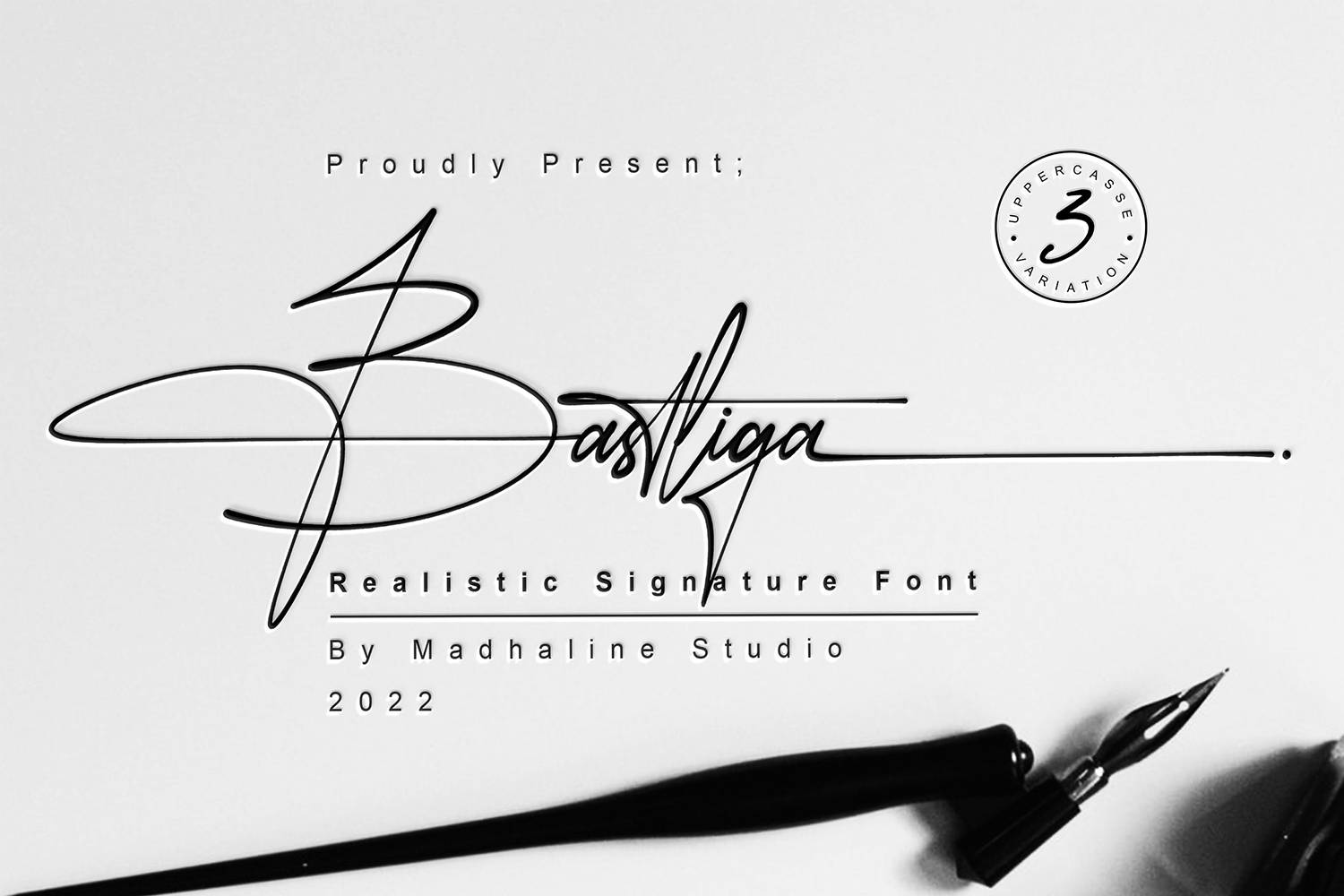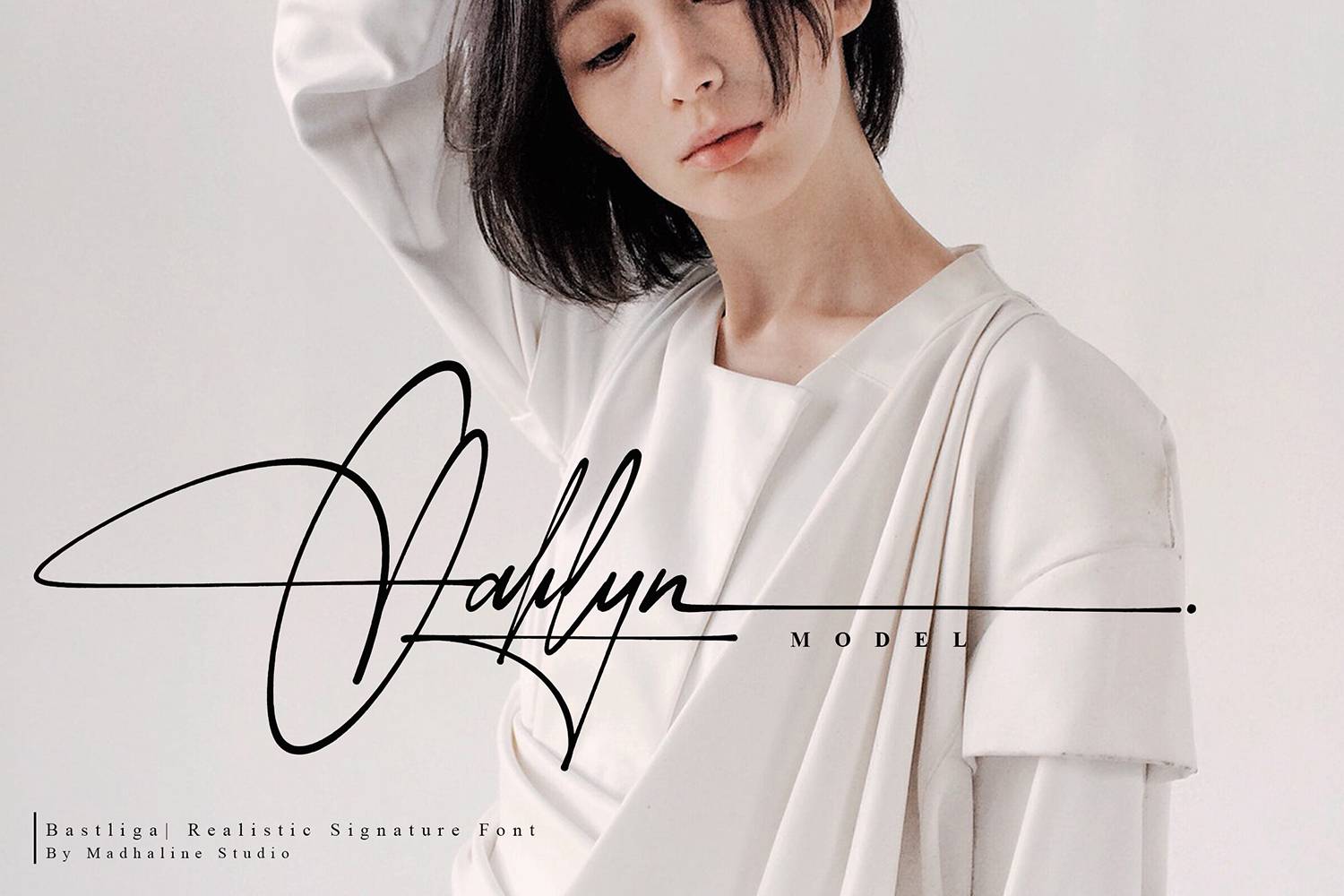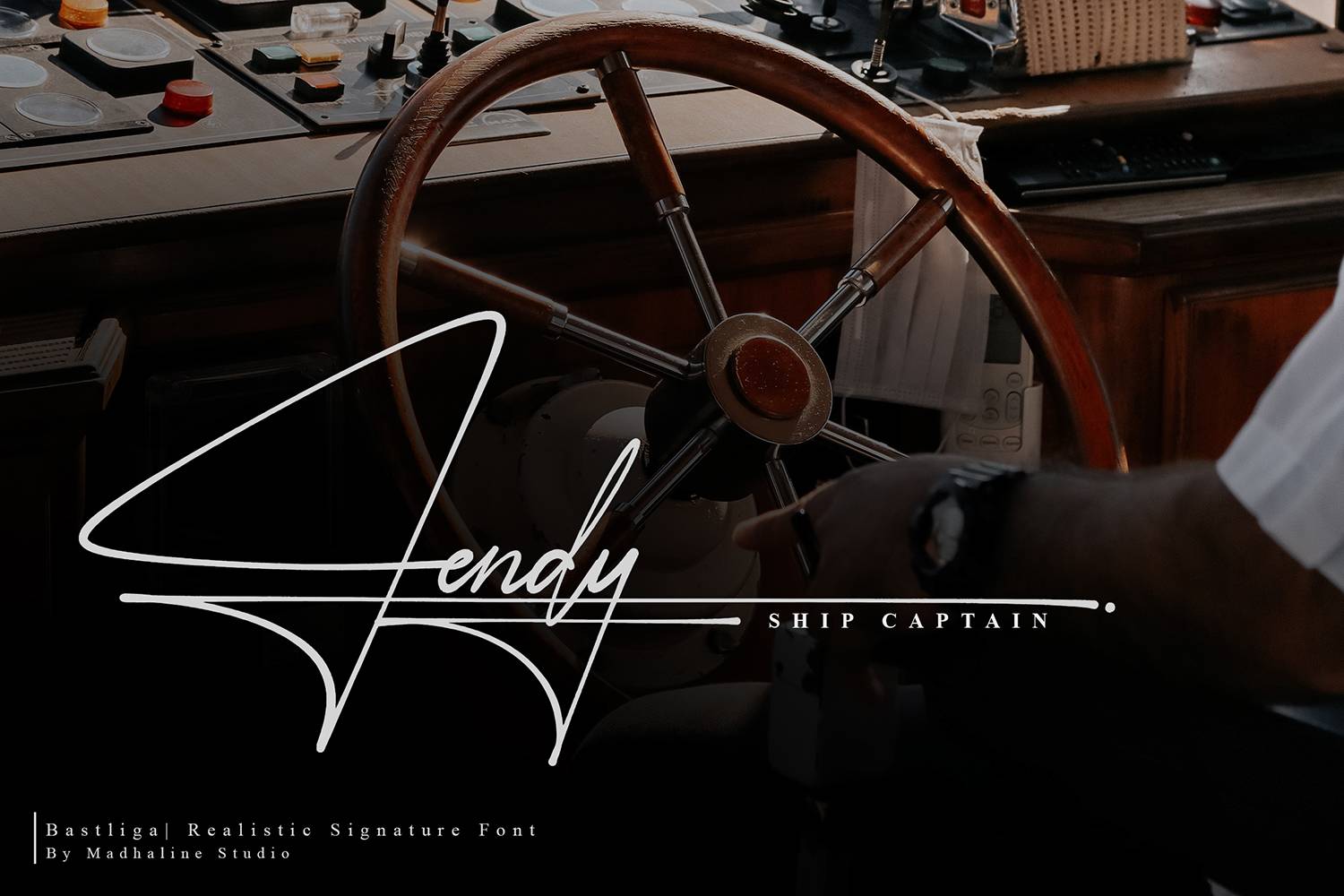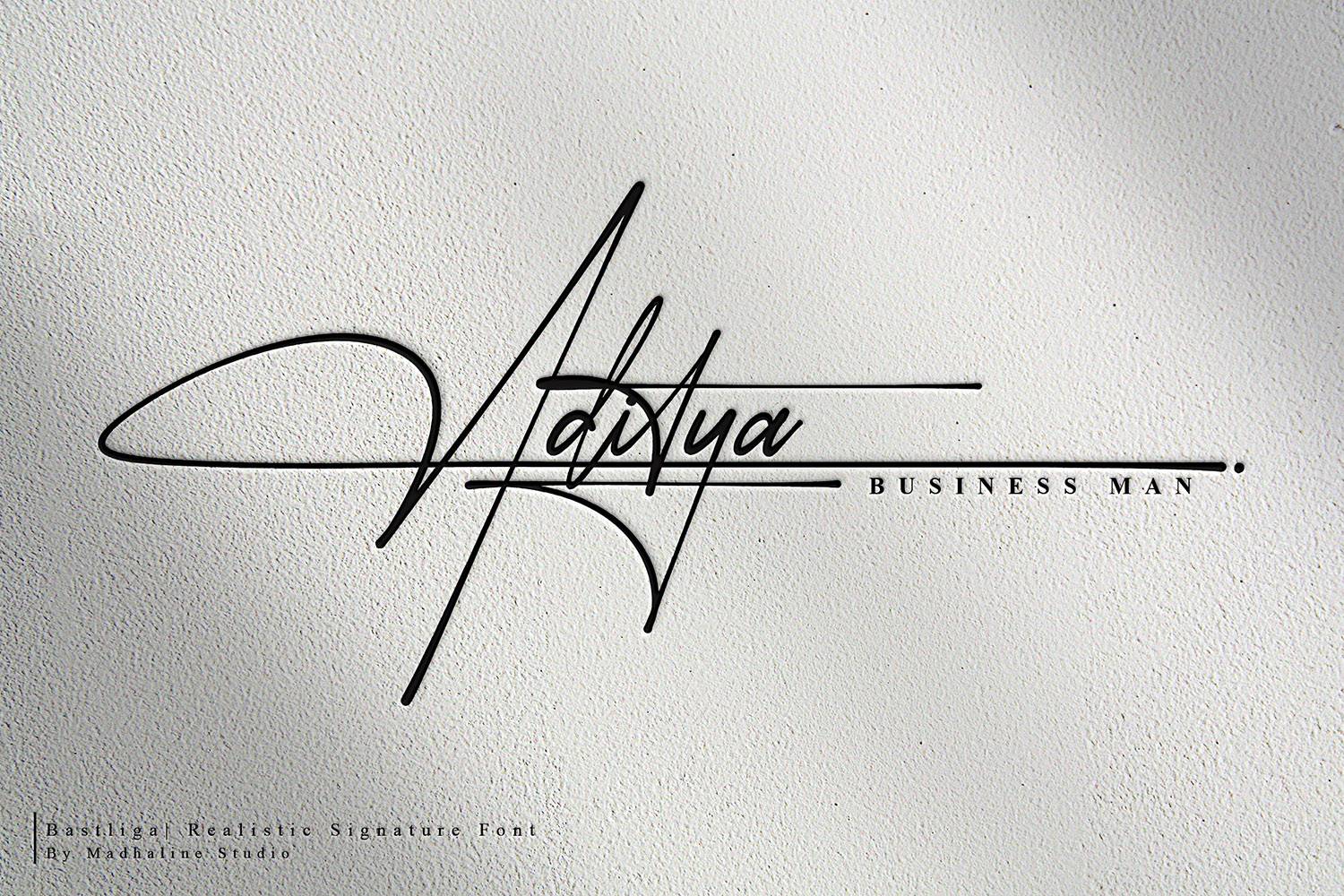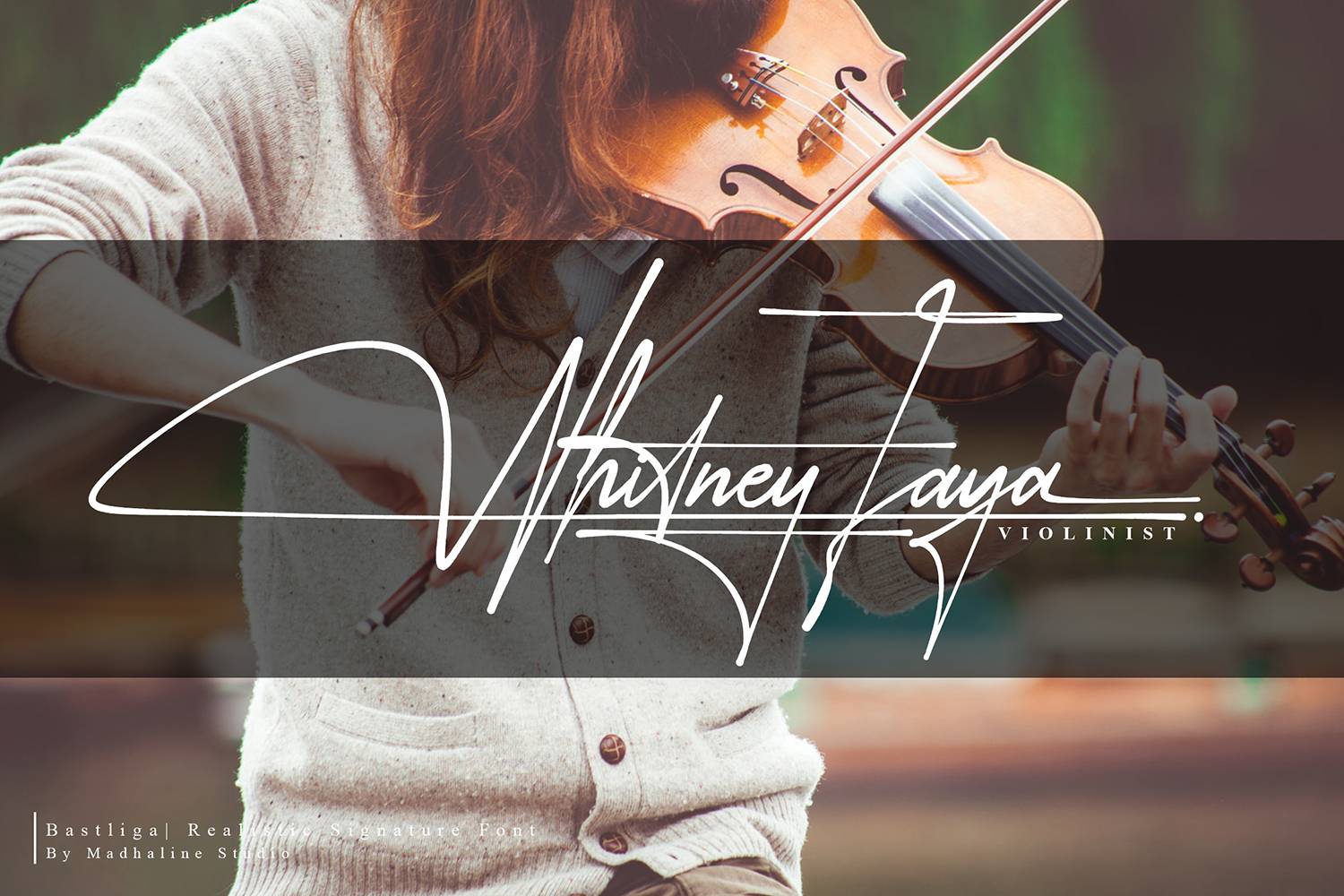
Bastliga is a delicate, highly stylized script font with an elegant and artistic flair, characterized by its very thin, flowing lines and intricate letterforms. Its light weight and airy strokes give it a sophisticated, hand-drawn feel, making it ideal for luxury branding, fashion logos, and creative projects where a distinctive, graceful signature style is desired.
Bastliga Font
About Bastliga Font
| Font family | Bastliga Font |